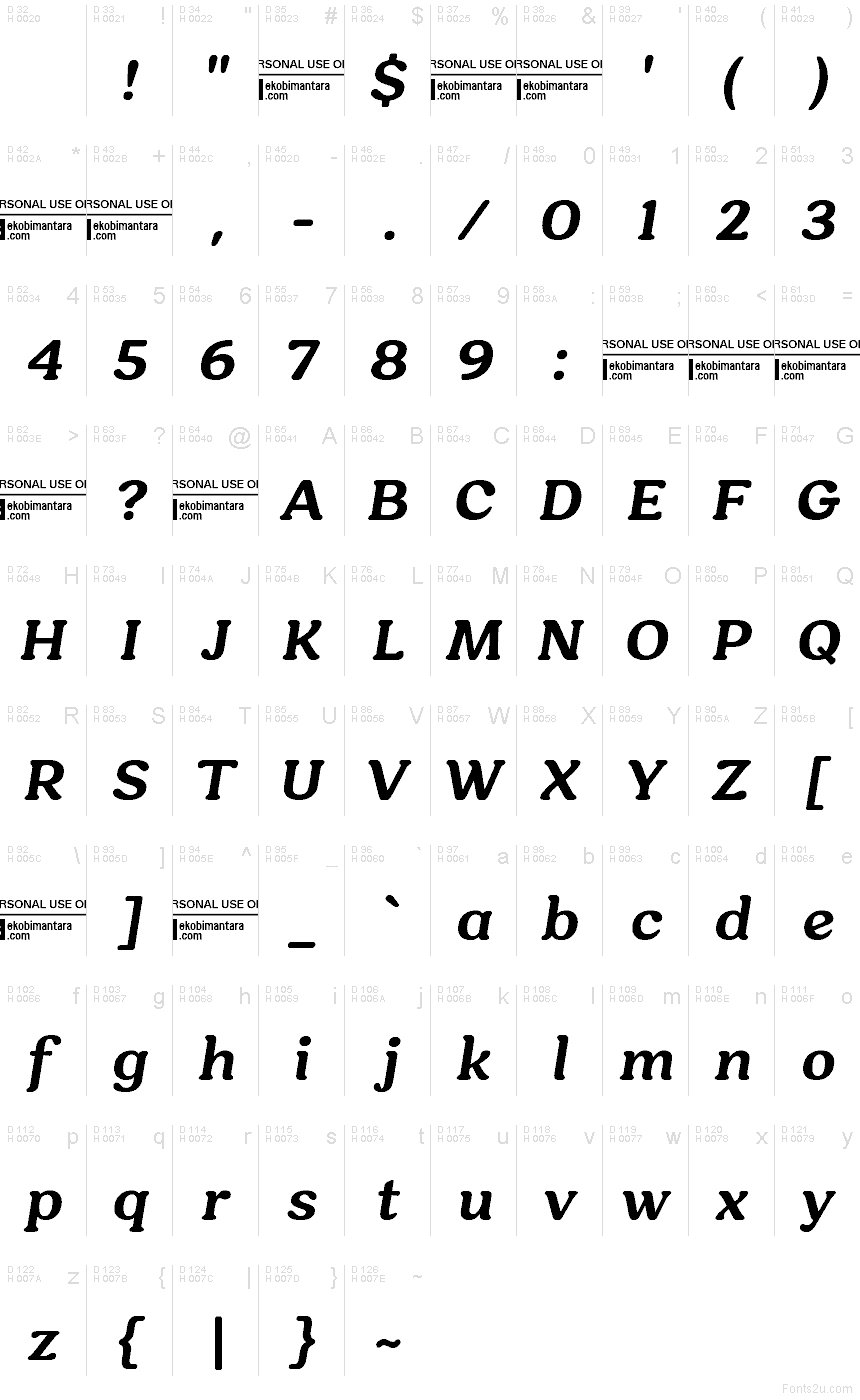
Hornbill Trial Bold Italic
Hornbill Bold Italic font by Eko Bimantara is a free bold retro display font. Part of the Hornbill family, it leans into a juicy, forward-leaning rhythm with sculpted wedge serifs and soft, inky curves. The strokes feel carved rather than drawn—thick-and-thin contrast that swells smoothly, giving headlines a velvety snap and a confident, vintage slant.
Using Hornbill Bold Italic, you get warmth and momentum that shines on heritage-inspired branding, beverage labels, restaurant menus, editorial pull quotes, event posters, and album covers. This free font thrives large, where its curved counters and italic swing build an inviting cadence; try a touch of negative tracking for extra punch. Pair with a clean geometric sans for body copy to let Hornbill carry the spotlight.